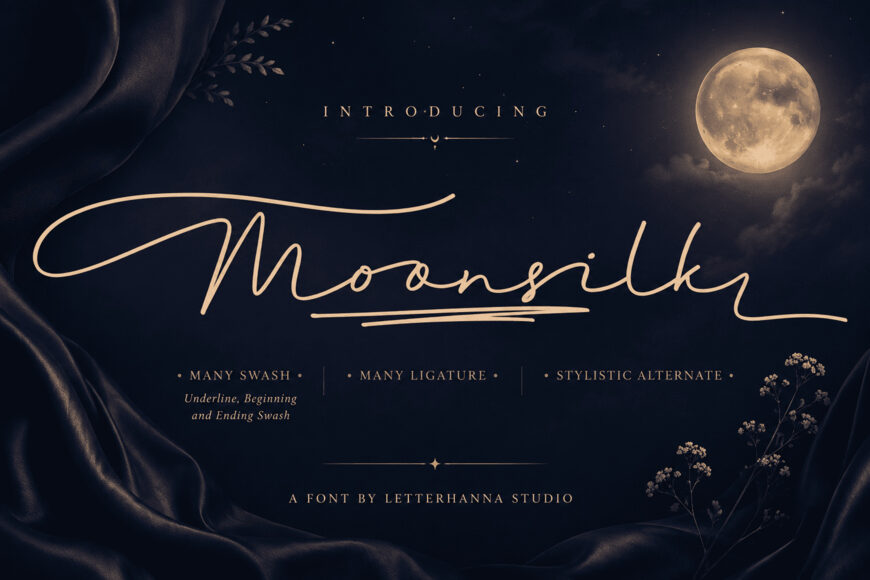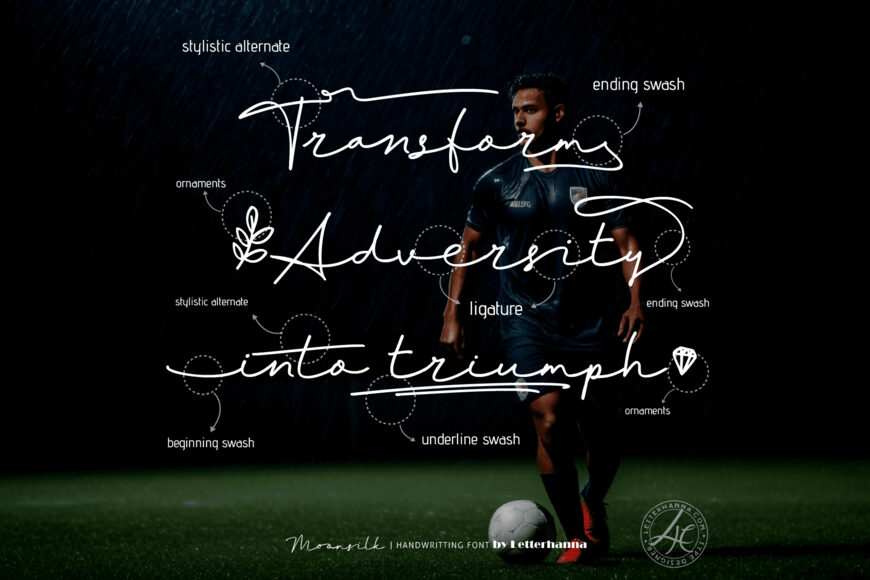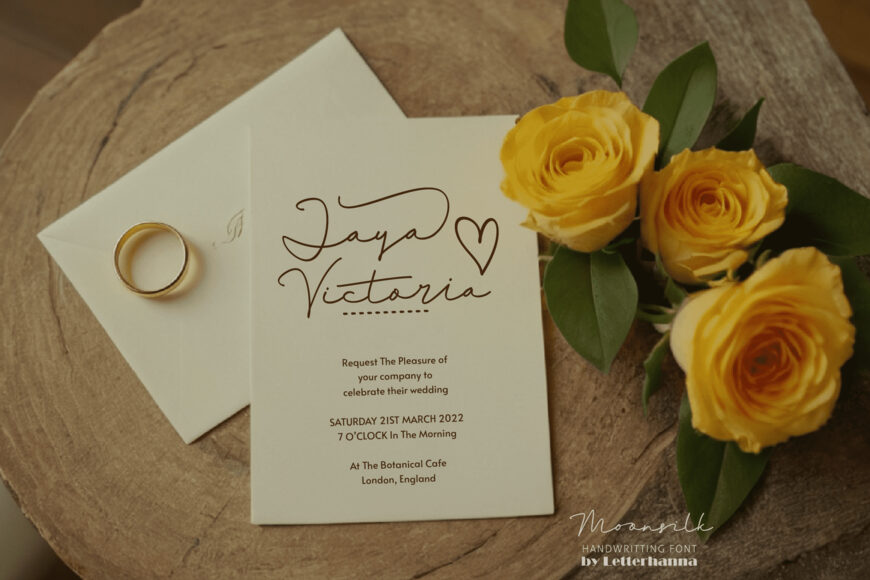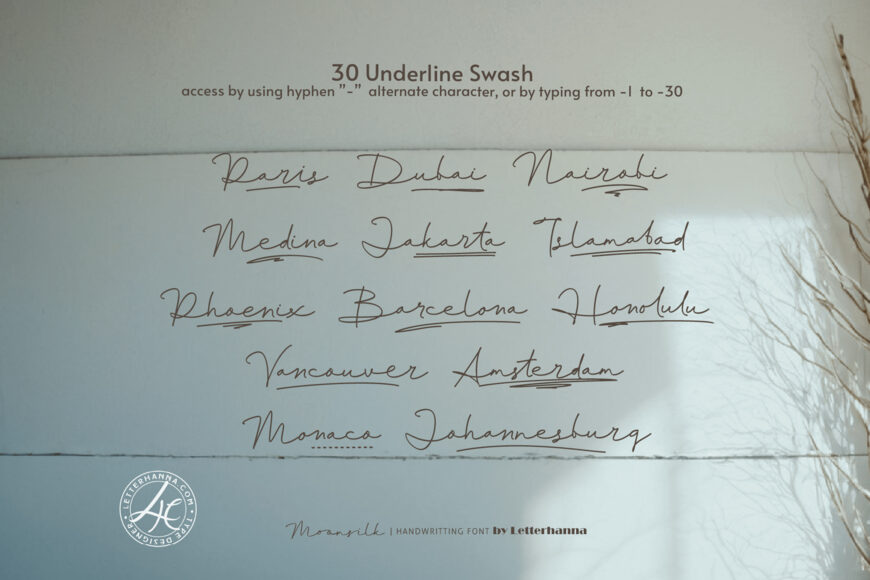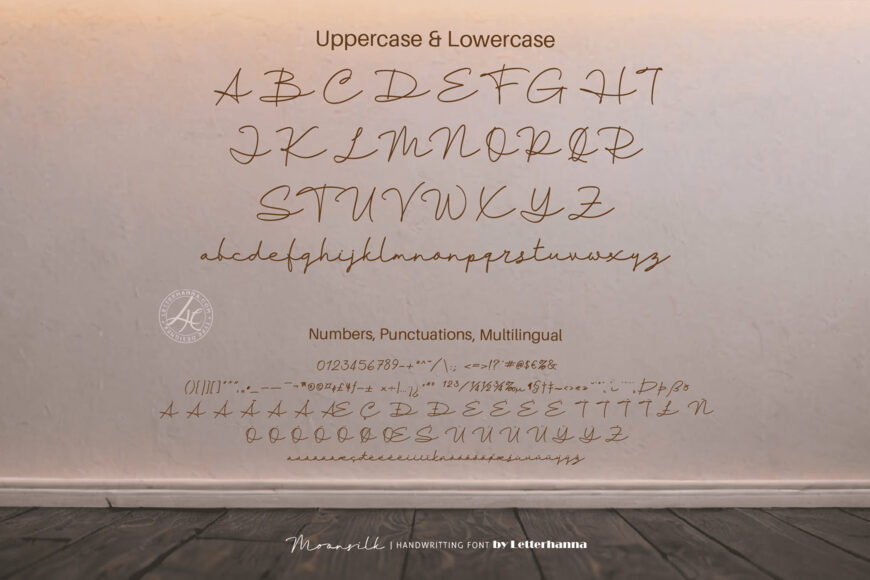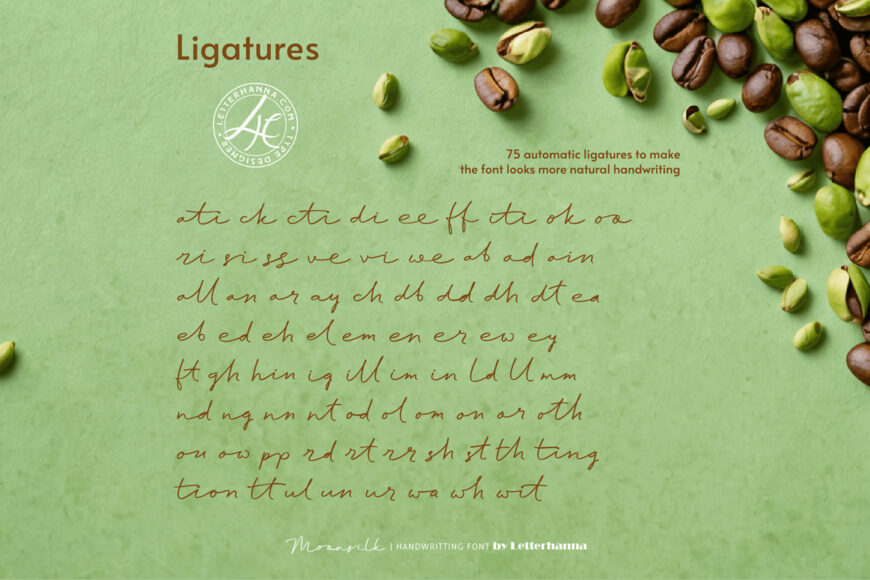
Introducing Moonsilk, a new handwritten script font that captures the essence of elegance and informality. Moonsilk is perfect for adding a touch of personality to your projects. Whether you’re crafting wedding invitations, designing heartfelt letters, or personalizing social media posts, this font injects a warmth and sincerity that resonates with the reader.